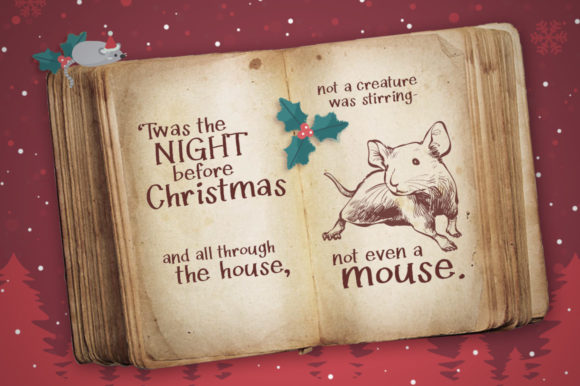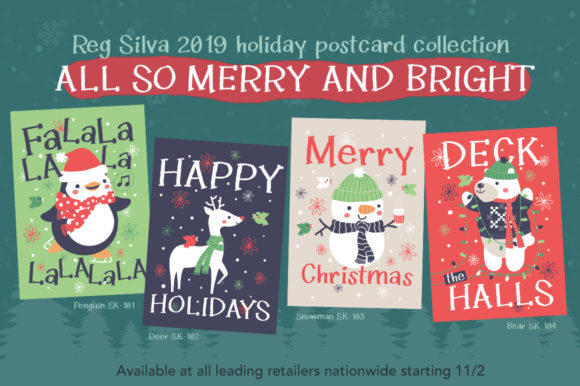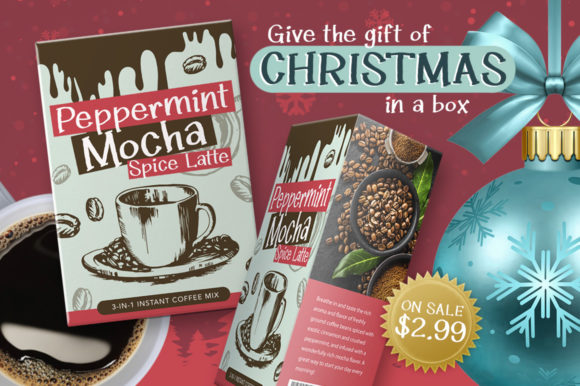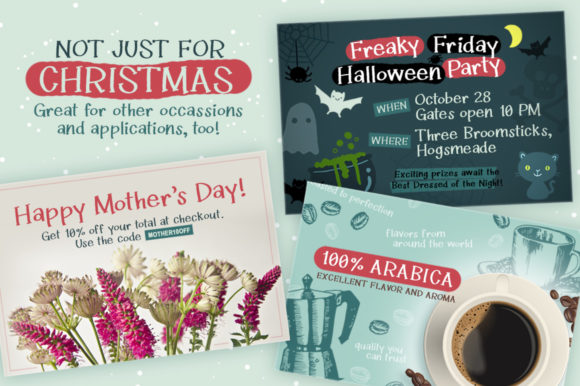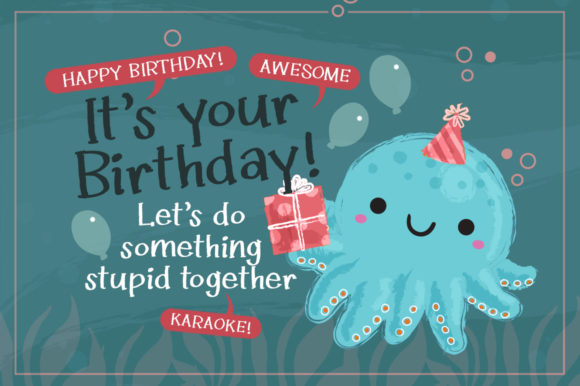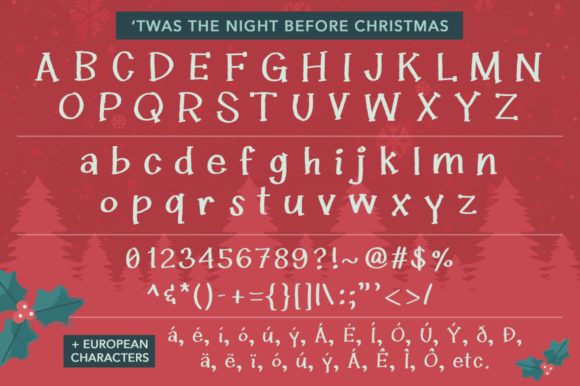
Twas the Night Before Christmas Font
About Twas the Night Before Christmas Font
‘Twas the Night Before Christmas is a handwritten serif font that’s super versatile– it’s not just for Christmas, actually! The kooky, uneven letters are perfect for adding a handwritten look to any Halloween, birthday, or social media project!